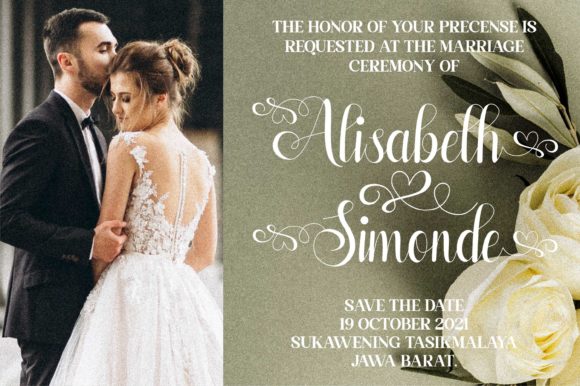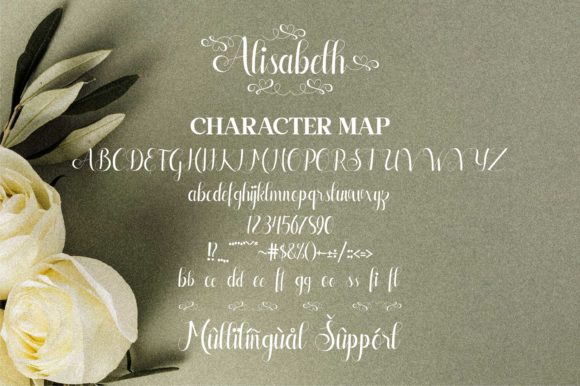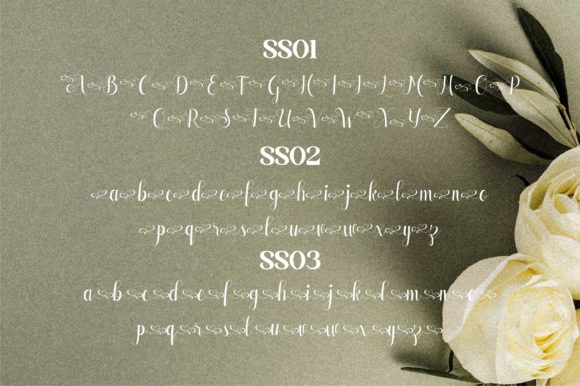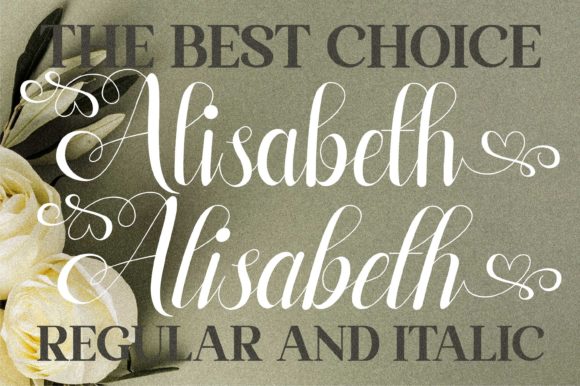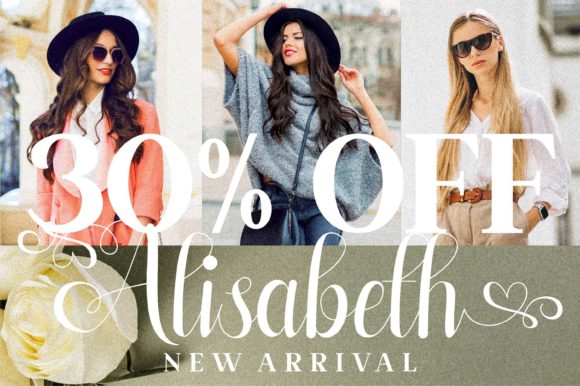
The Perfect Touch of Whimsy: Introducing Alisabeth Font
There’s something magical about creating a design that evokes a sense of romance and elegance. It’s the moment when you finally find the perfect combination of colors, shapes, and typography to convey the emotions you want to express. For designers, this moment is often the culmination of hours of brainstorming and experimentation.
That’s why we’re excited to introduce the Alisabeth Font, a dazzling handwritten font that’s perfect for adding a touch of whimsy to your next project. With its flexible script style, Alisabeth Font is ideal for greeting cards, headlines, and any design that needs a romantic feel. Its PUA encoding ensures that you can access all of the beautiful glyphs and swashes with ease, making it a valuable addition to any designer’s toolkit.
Alisabeth Font Key Features
- Font Family: Alisabeth is a script font with unique, elegant, and stylish characteristics.
- Unique Characteristics: Alisabeth features a flowing, handwritten style with intricate connections between letters, giving it a personal and artistic touch.
Alisabeth Font Review
Overall, I’d say the Alisabeth Font has a lot going for it, especially in the whimsical and playful department. ✨ The font’s unique blend of script and brushstrokes gives it a charming, handwritten feel that’s perfect for creative projects.
Here are a few things that really stand out:
- ✨ The font’s fluidity and organic feel make it a great choice for invitations, greeting cards, and other personal stationery.
- ✨ The wide range of weights and styles means you can customize the font to fit your specific needs, from bold headlines to delicate body text.
- ✨ The font’s quirky charm makes it a great choice for brands and businesses that want to stand out from the crowd.
- ⚠️ The font may not be the best choice for body text, as it can be a bit difficult to read at smaller sizes.
- ⚠️ Some users may find the font’s unique look a bit too whimsical or distracting, depending on the context.
Overall, I think the Alisabeth Font is a great choice for designers who want to add a touch of personality to their projects. With its unique look and wide range of customization options, it’s a great addition to any design toolkit.
Alisabeth Font is ideal for use in:
Business cards and marketing materials.
Photography and graphic design projects.